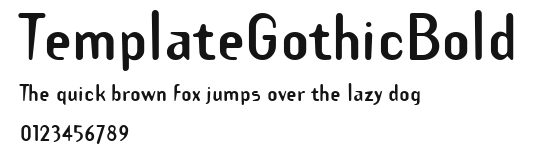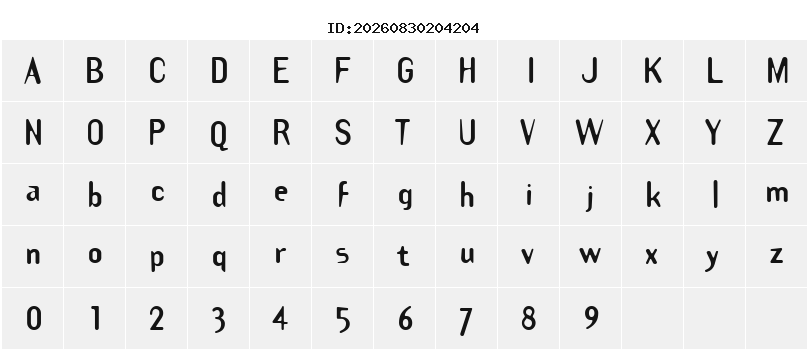
• Font Name: TemplateGothicBold
• Full Font Name: TemplateGothicBold Bold
• Copyright: Copyright (C) April 1, 1991 Emigre Graphics, Designed by Barry Deck
About TemplateGothicBold.ttf
TemplateGothicBold.ttf is a modern, elegant sans-serif font designed for ultimate readability and visual harmony. Perfect for branding, headlines, web design, and print materials.